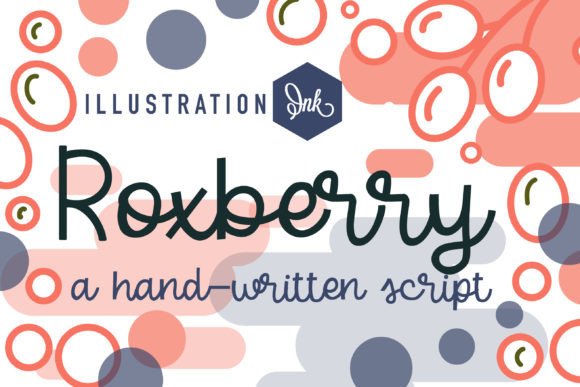
Introducing Roxberry Font: The Epitome of Sophistication and Playfulness for Your Digital Creations!
Journey into the realm of Roxberry Font, an exquisite script font family that exudes youthful energy and captivating elegance. This hand-written masterpiece by Illustration Ink is meticulously crafted to bring a touch of whimsy and sophistication to your digital endeavors. Roxberry Font stands as a testament to the timeless beauty of handwritten fonts, seamlessly blending the charm of penmanship with the versatility of digital design.
With its playful upright cursive and print-like uppercase, Roxberry Font adds a dash of personality and charm to your projects. Its youthful spirit lends itself perfectly to invitations, greeting cards, and other personal touches, while its sophisticated aesthetic elevates branding, logos, and social media designs. Whether you're a seasoned designer or just starting your creative journey, Roxberry Font is the perfect companion for adding a touch of uniqueness and charm to your work.
Embrace the allure of Roxberry Script and unlock a world of creative possibilities. Its versatility knows no bounds, extending from eye-catching headlines and captivating social media posts to heartfelt letters and personalized invitations. Let Roxberry Font infuse your designs with a touch of playfulness and sophistication, leaving a lasting impression on your audience.
As a handwritten font, Roxberry Font possesses an inherent charm and authenticity that instantly connects with your audience. It evokes a sense of nostalgia and familiarity, reminiscent of childhood letters and heartfelt notes. Its organic and flowing lines add a human touch to your designs, creating a sense of warmth and connection.
Whether you're designing a wedding invitation, crafting a heartfelt letter, or creating a stunning social media post, Roxberry Font is the perfect choice for adding a touch of elegance and charm. Its playful spirit and sophisticated aesthetic are sure to captivate your audience, leaving them with a lasting impression.